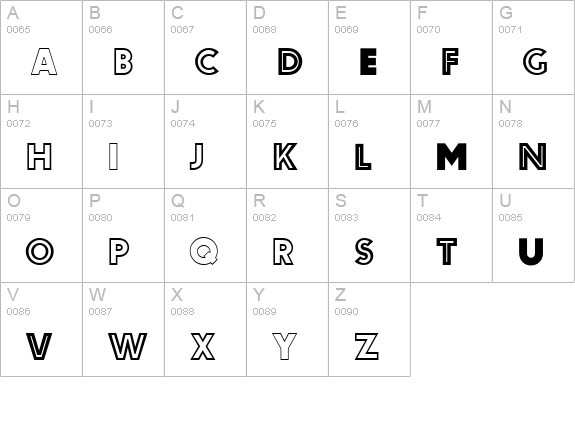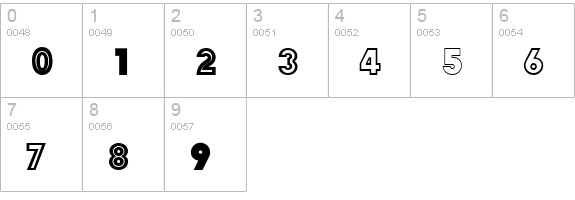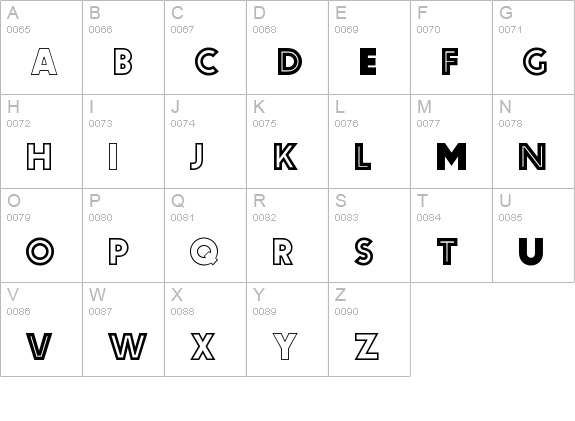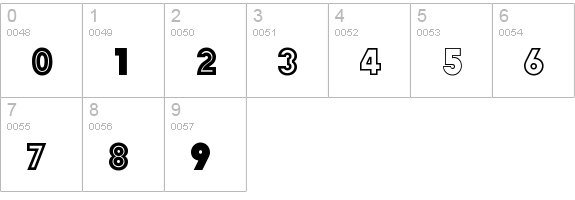
Leopard MN is a stunning and elegant font that exudes sophistication and modernity. Its sleek and stylish design is perfect for a wide range of creative projects, from branding to editorial design. With its sharp lines and bold presence, Leopard MN commands attention and makes a statement wherever it is used. The best part? Leopard MN is completely free to download at FontsMarket.com! That's right, you can add this beautiful font to your collection without spending a dime. Don't miss out on the opportunity to enhance your designs with the striking beauty of Leopard MN. Download it today and watch your projects come to life with this exceptional typeface.